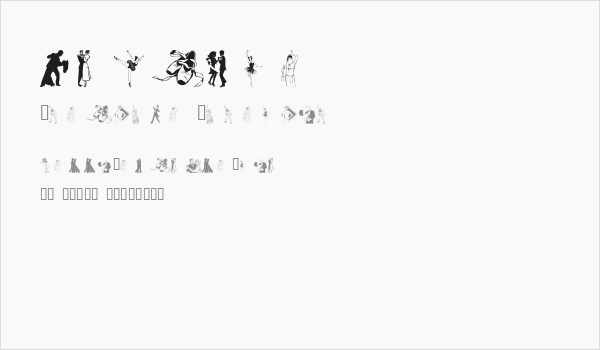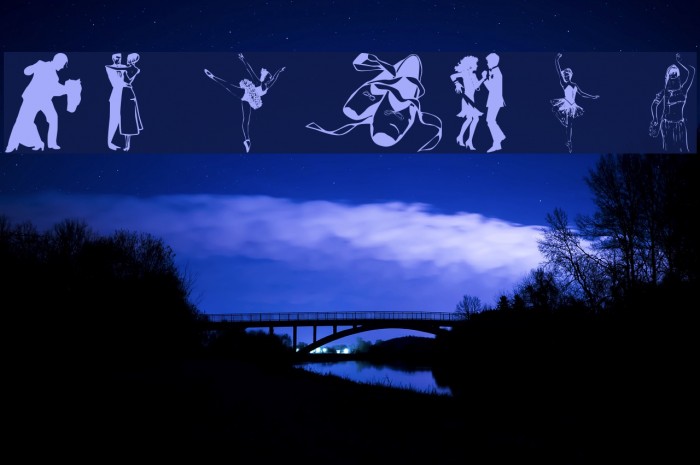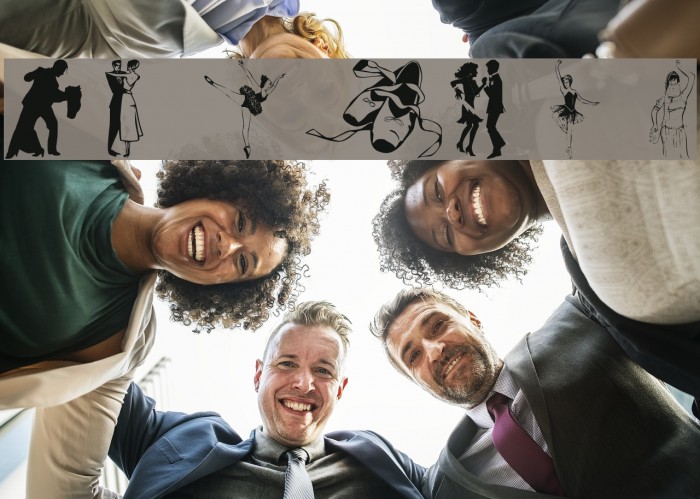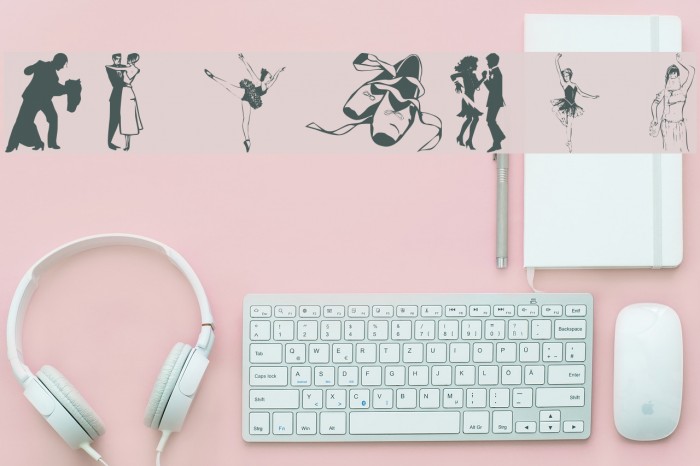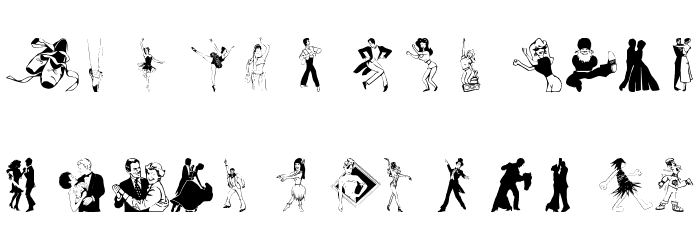
wmdance Font
wmdance Description
A decorative display font featuring detailed silhouettes of dancing couples and solo dancers as letterforms, each character uniquely illustrated to represent various dance styles and poses.
| Overall Style | Decorative, Artistic |
| Use Case | Logos, Headlines, Posters, Invitations |
| Proposed Projects | Event posters, dance studio branding, party invitations, themed flyers, artistic projects. |